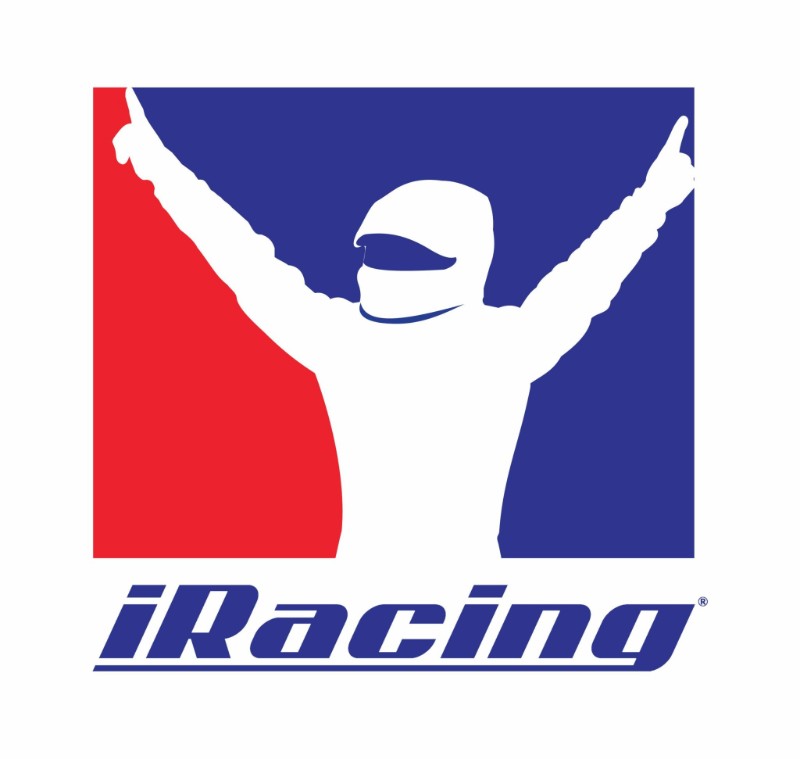
iRacing (video game) Font
Fonts in UseiRacing is a popular online racing simulation video game developed by iRacing.com Motorsport Simulations.
The current iRacing logo was designed using the Add City Boy font, which resembles their previous logo's font. It features a cleaner design by removing serifs and changing the dots on the letter "i" to rectangles. You can download the font for free from the Fonts Used Section.